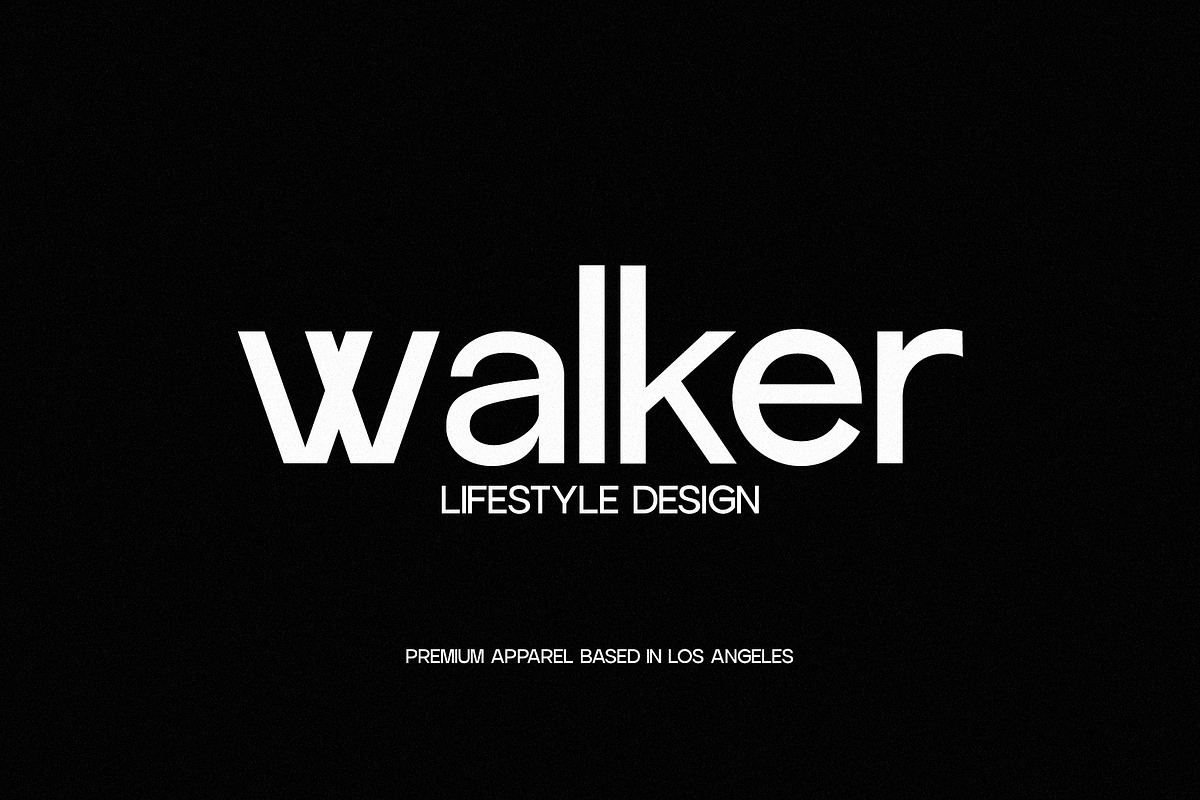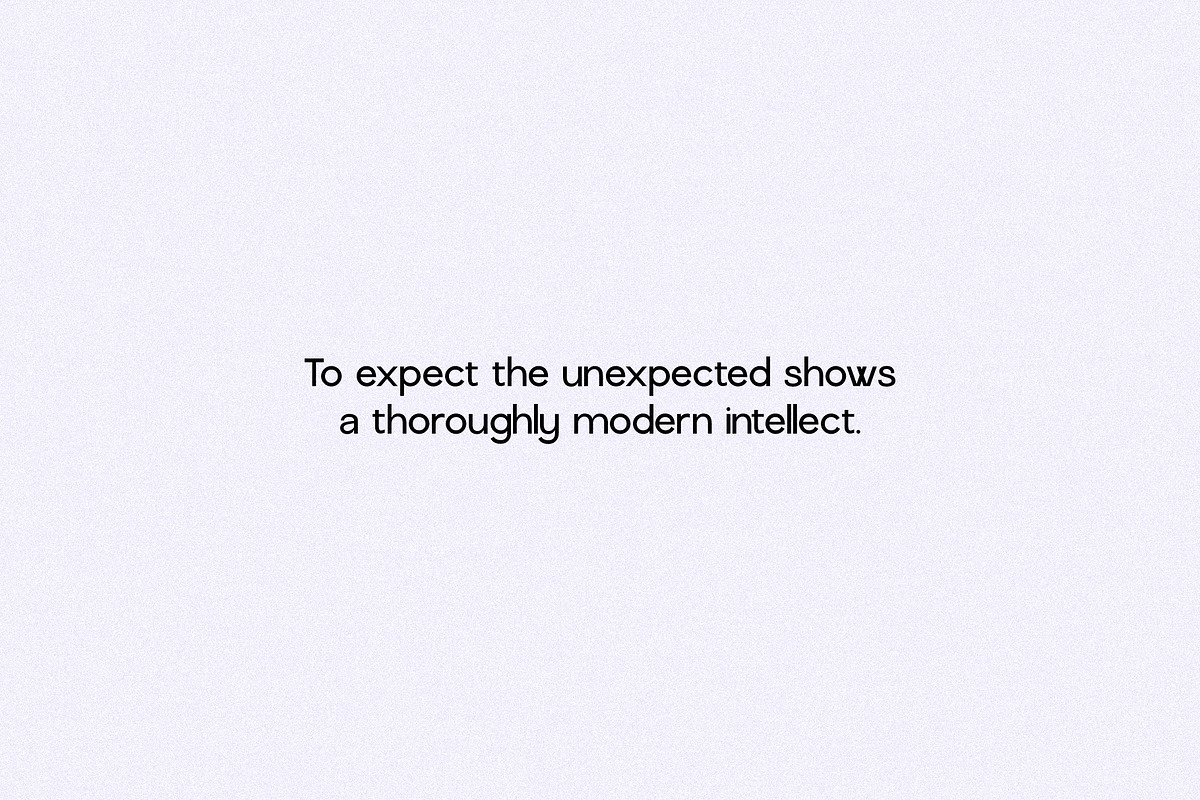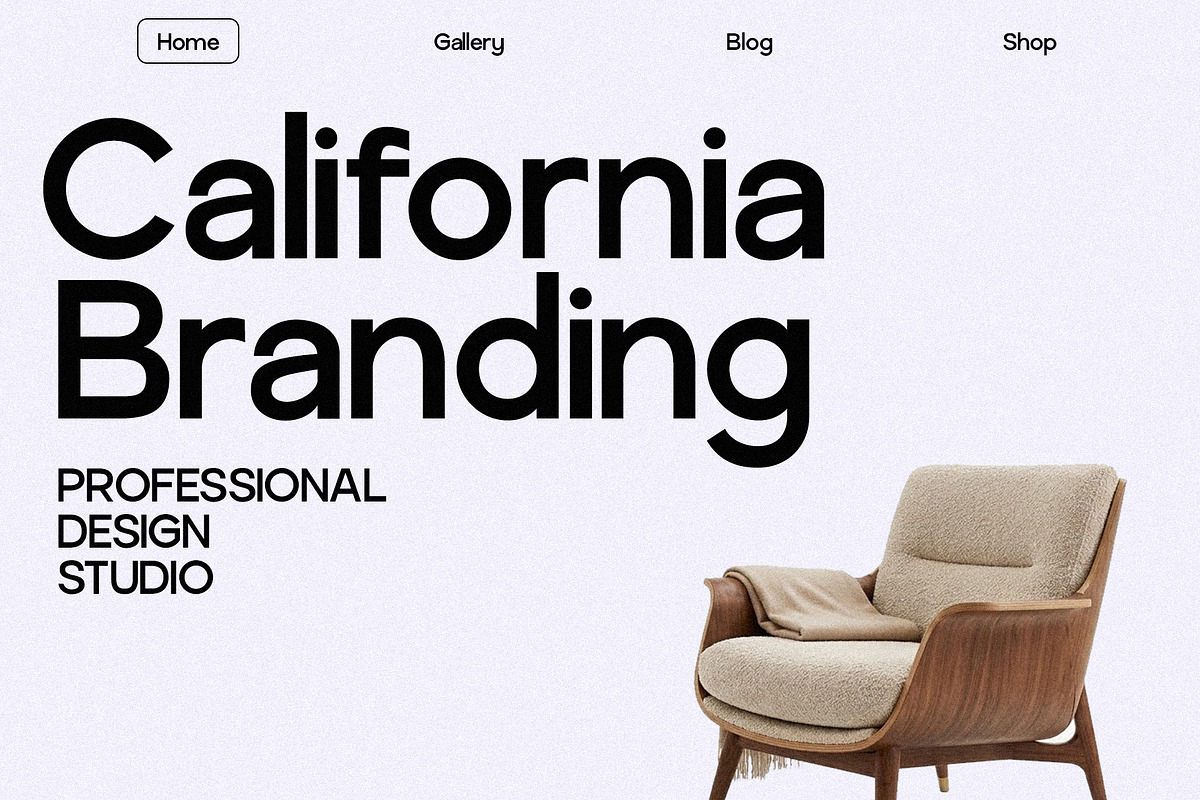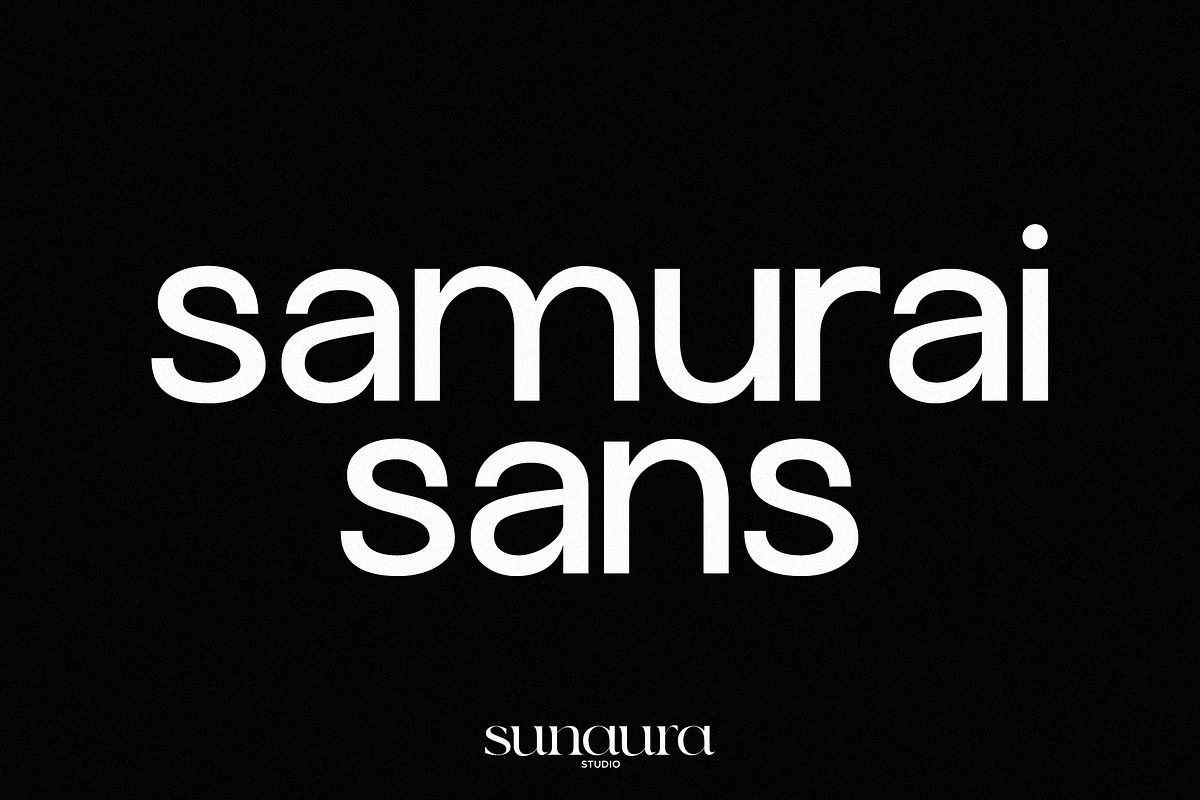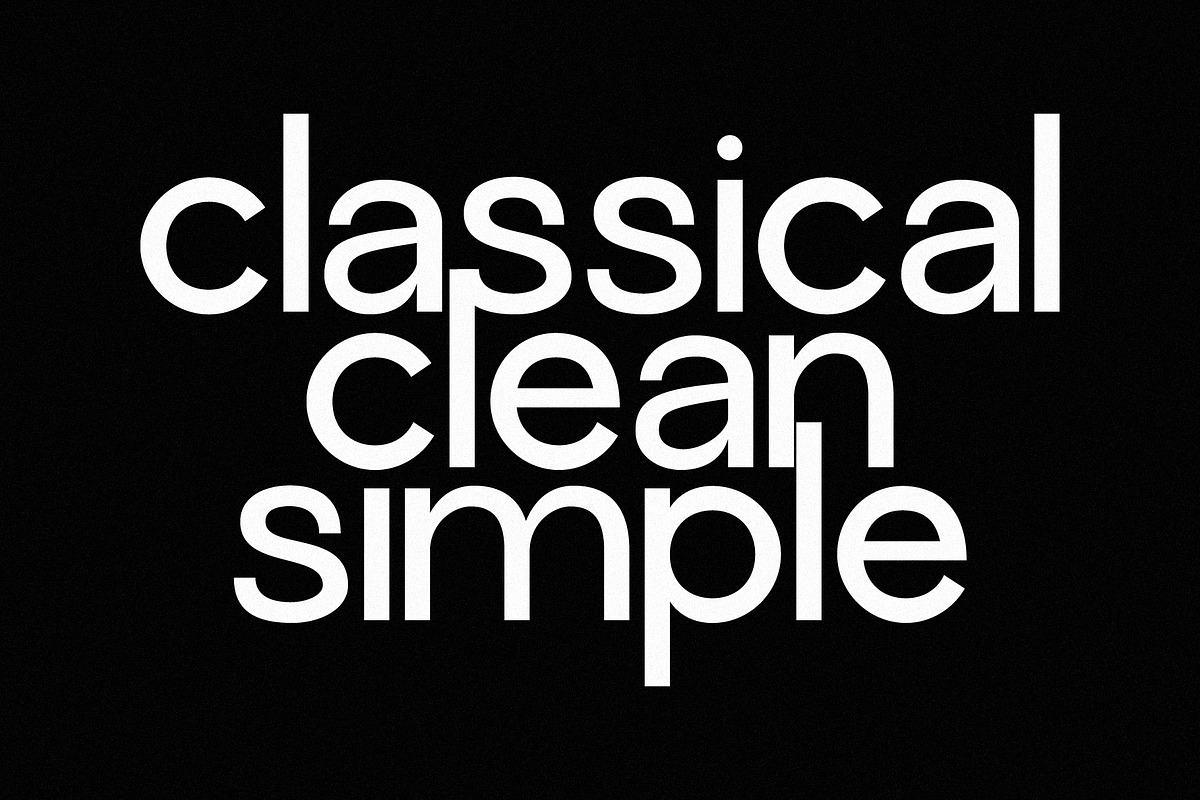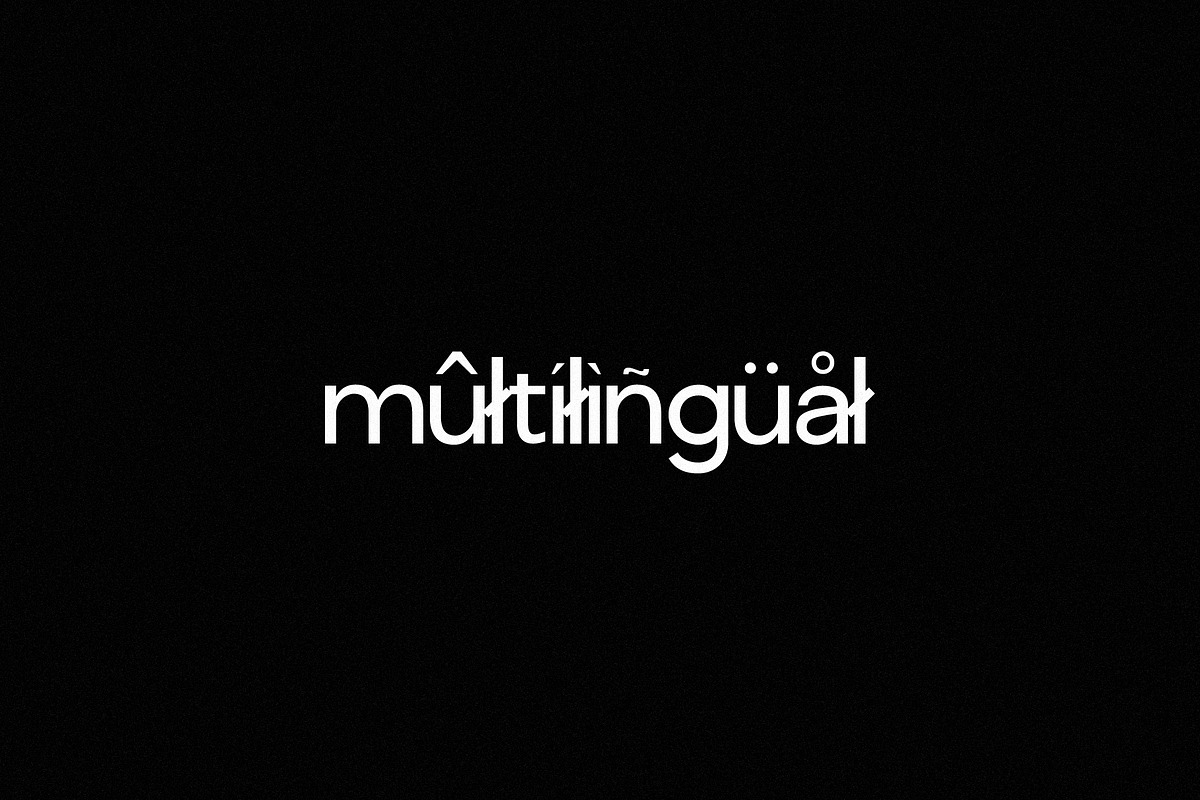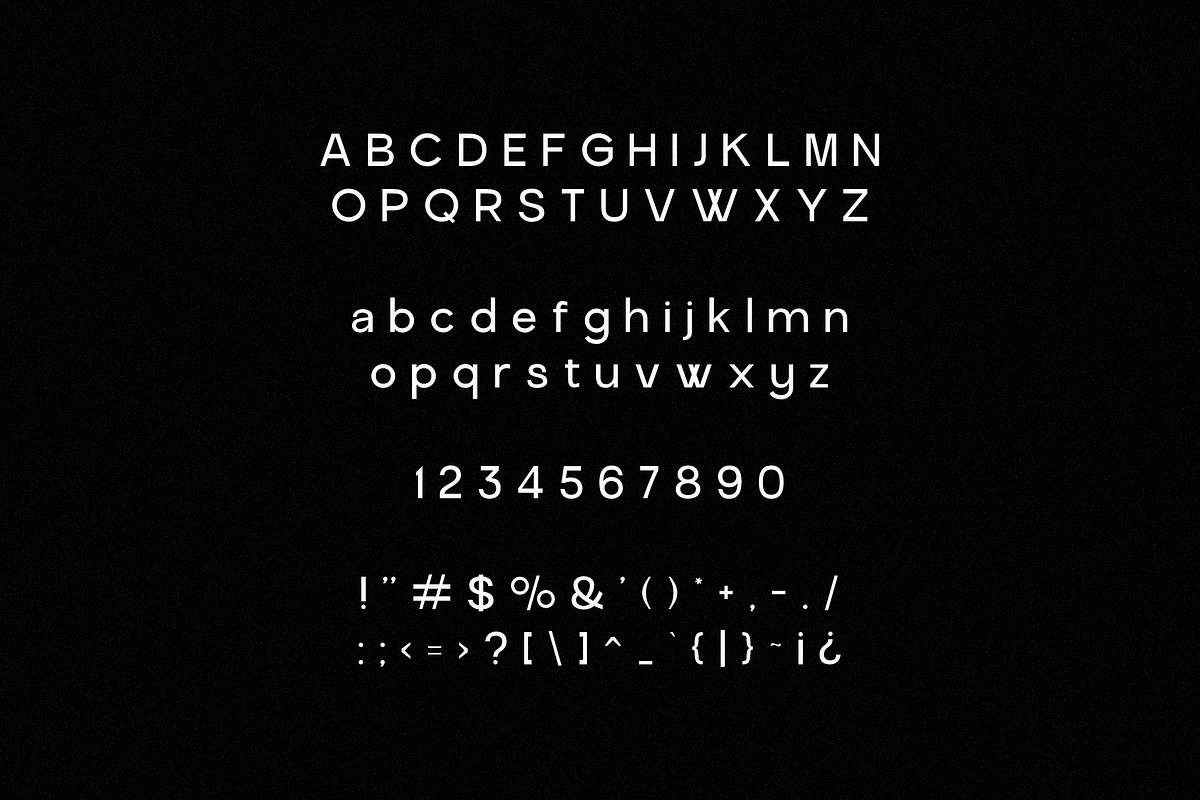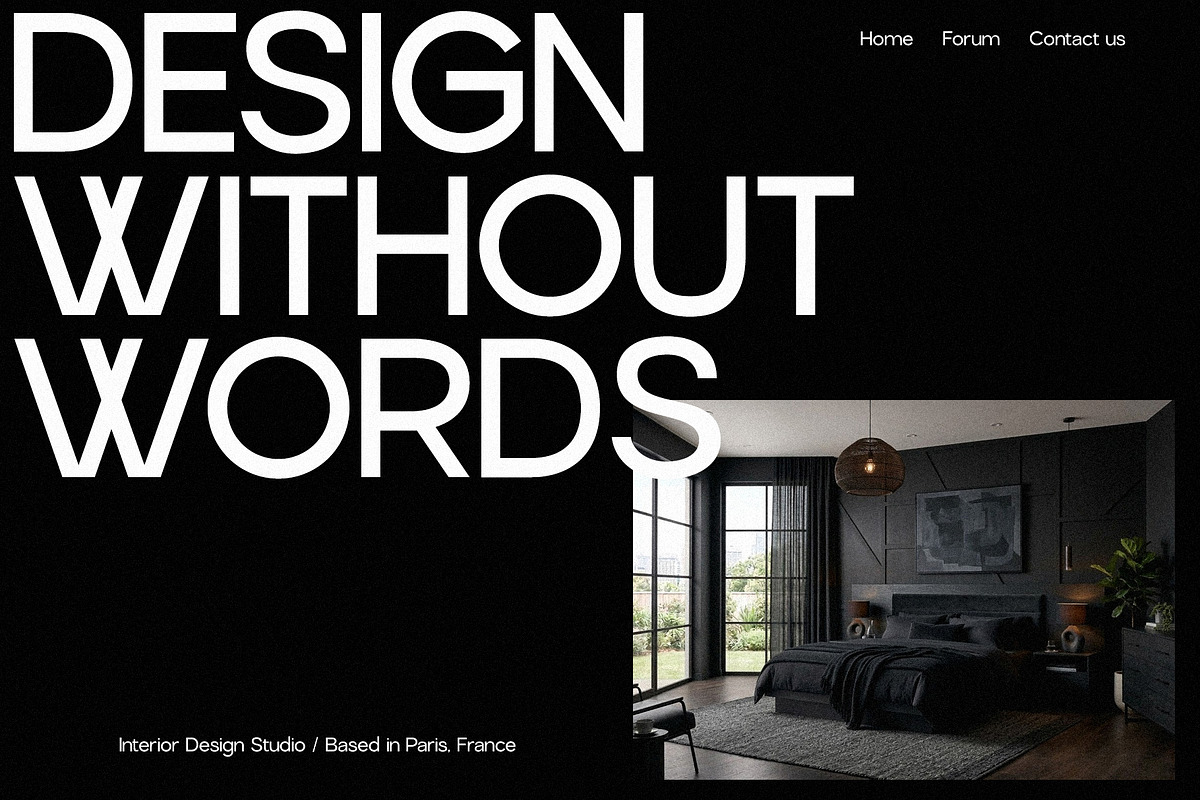
Samurai Sans Serif
Samurai is a powerful modern sans serif inspired by precision, discipline, and quiet strength. Built with clean geometry and sharp detailing, it delivers a bold yet balanced presence that commands attention without overwhelming the design. Its structured letterforms are crafted with intentional cuts and subtle angles. The minimalist construction keeps it versatile and highly legible, while its distinctive character gives brands a confident, contemporary voice.